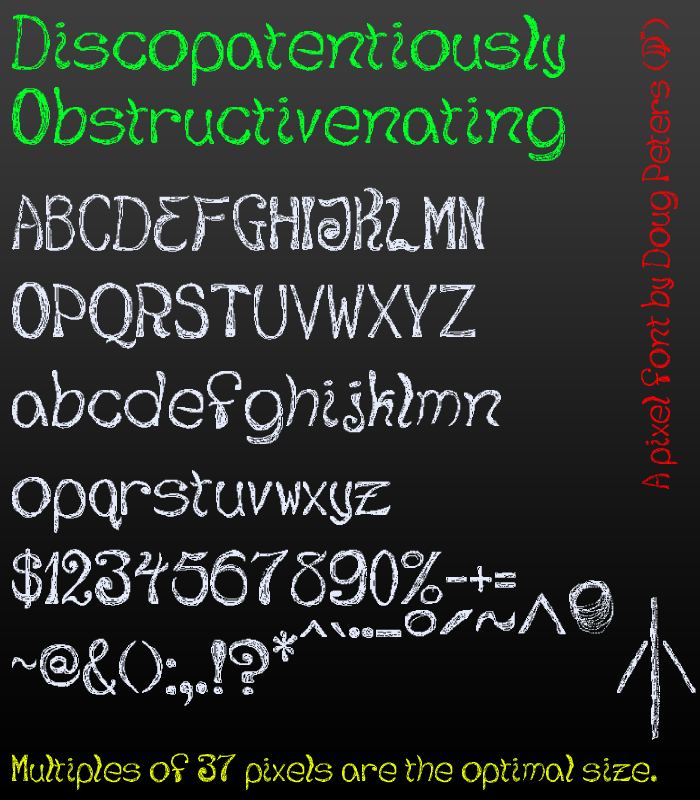
This is my own clone of the original version. It may look a little like my Kindegraf or Sketchy fonts, as it's my handwriting with a mouse, and I bet there isn't a lot of deviation there (with the handwriting) but it IS different. More characters would require more work.  Happy to do it, but not for free.
Types: Hand printed lettering.
Weight: Regular, Curly.
Trying to get the line height right (as it's all wrong).
I fixed it for Fontstruct with some tall characters (I think the unknown character, vertical bar and some floating accents did the trick in here) and for Photoshop I had to take off the .5 x .5 grid.  Then, it worked.  The leading in the sample text (not the font name, though) below is all auto leading...
WHAAAAAAAAAAAAATTTTTTTT IS OF PIXELS!!!!!!!!!!!
At pixel view, I see anti-aliasing... When working with pixel fonts, make sure to set spacing in intervals of 1 unit (1 unit = 1 grid square)...
So... you are all saying that a pixel font should be treated as a monospaced font with the same sized working character area for each and every character?
Jeepers.
@DP It doesn't have to be Monospaced... Just that the spacing of a Pixel font should be snapped to the pixel grid...
I'd only suggest widening the space. 10/10
It is.  Every filter is set to 1.  The left line and the base are starting points and characters snap to them, though there are overshoots of 2 pixels on characters with curves and maybe pointy ends.  It is a 37 pixel high font, otherwise.
@DP Did you check the width of the letters and the Global Spacing?
You know, @77, there are optical illusions in there.  I know a little bit about anti-alaising and used it at times, from a human perception perspective.  But hey, I started out as a pixel artist.  At 640x480 you learn how to take advantage of pixels to faux in a look.  There should be lots of gray spots when rendered at the correct size because of how we perceive stuff.  And the font will look widely different at different (non-optimal) sizes.  At multiples of 37 it will just look pixelated, though, unless you throw in a little magic and upset the math.  Which can have good or bad consequences, depending on how it is used.
I was telling 77 that the letters all snap to the left line and the baseline.  That there are overshoots under the baseline for curves and pointy things.  The letters and characters are the width they are, not some specific width.  Aside from overshoots and high hanging accents and marks (or the low line, the cedilia and descender tailed letters), the letters are all 37 pixels talls.  The exception being the vertical bar and the unknown character glyphs (3 of them), which were created (along with the accents) specifically to correct the issue where Fonstruct would overlap the letters in preview (quite dramatically).
The skinniest glyph may be the vertical bar which is extraordinarily tall and deep for increasing line height, but is only 10 pixels wide. 11 if you count the extra pixel of cushion.  The gap between letters is 2.75 globally (I think I remember that right -- I hope so, but I will check and if not I will make another post instead of correcting this one).
Maybe the 2.75 global spacing gap is the issue that @77 wants resolved?  Is that a measure of pixels?
@DP Yes, you can round it up to 3... It is also a measure of bricks too...
I moved the t over a couple of pixels, too.  Added a small pixel line to help round out the top of the f and s.